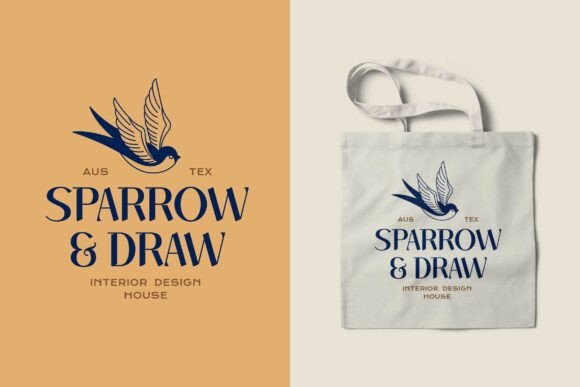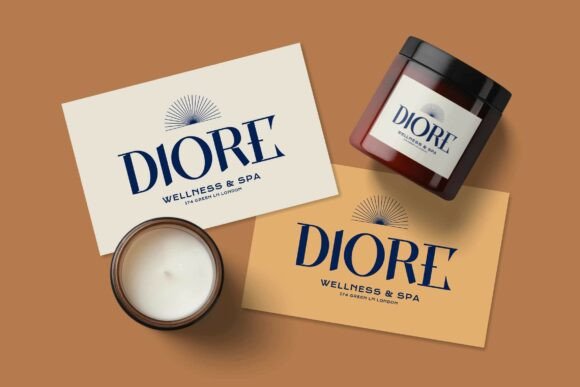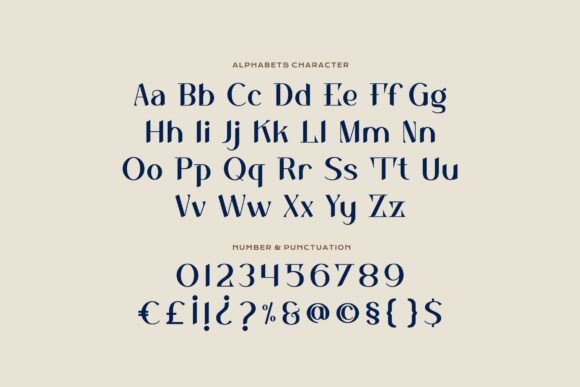
Introduction to Mukoji Font Font
Fonts play a crucial role in design, and the Mukoji Font font is a typeface that brings both character and versatility to any project. Whether you’re working on a branding project, a website, or a print design, the Mukoji Font font offers a unique style that can elevate your work.
Mukoji is a stunning and sophisticated modern serif typeface that effortlessly blends timeless elegance with contemporary style.
This font is the epitome of high fashion and luxury, designed to make your branding stand out with an air of refined confidence This font works seamlessly across lifestyle, fashion, interior design, and wellness industries.
Key Features of Mukoji Font Font
Why Choose Mukoji Font Font?
The Mukoji Font font is more than just a typeface – it’s a design tool that helps you communicate your message with style and clarity. Its unique character set and versatile design make it suitable for a wide range of applications, from elegant invitations to bold headlines.
With its carefully crafted letterforms and balanced proportions, the Mukoji Font font ensures readability and visual appeal across all mediums.
What makes Mukoji Font font special?
The Mukoji Font font stands out with its unique design, exceptional readability, and versatility across various design applications.